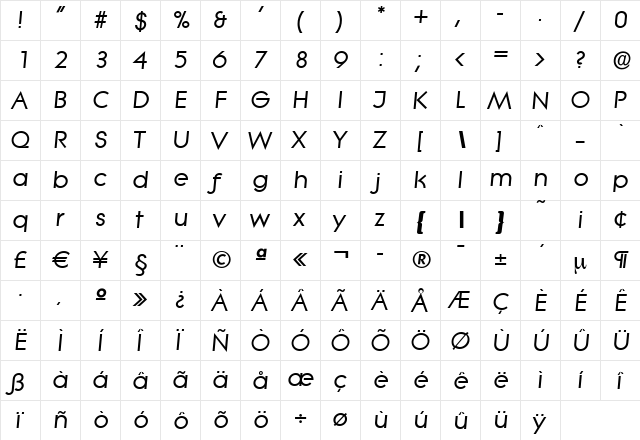
BradBecker Bold Italic
Design Context for BradBecker Typeface
BradBecker is a composed and adaptable typeface that performs quietly and consistently across a wide range of design contexts. Its italic angle brings a sense of urgency and motion to the letterforms. Its bold stroke weight gives it real presence on the page.
Pro Tip: Use BradBecker for emphasis, pull quotes, and subheadings where its slanted energy can add rhythm to the layout.